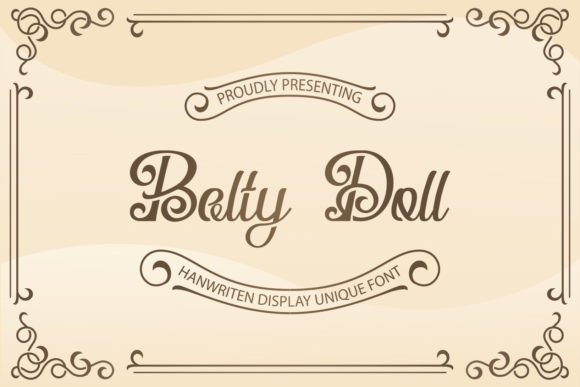
Introducing Belty Doll Font: The Ultimate Vintage Art Style Display Font
Are you looking for a font that can add a touch of elegance and sophistication to your designs? Look no further than Belty Doll Font, a stunning display font with a vintage art style that’s perfect for a wide range of creative projects. In this article, we’ll take a closer look at the features and benefits of Belty Doll Font, and explore how you can use it to take your designs to the next level.
What is Belty Doll Font?
Belty Doll Font is a beautifully crafted display font that’s inspired by the art of the past. With its intricate lines, delicate curves, and ornate details, this font is sure to evoke a sense of nostalgia and romance in your designs. Whether you’re working on a wedding invitation, a logo, or a t-shirt design, Belty Doll Font is the perfect choice for anyone looking to add a touch of vintage charm to their work.
Key Features of Belty Doll Font
- Vintage Art Style: Belty Doll Font features a beautiful vintage art style that’s perfect for creating elegant and sophisticated designs.
- Display Font: This font is specifically designed for use in display settings, making it perfect for headlines, titles, and other prominent text elements.
- Multipurpose: This font is perfect for a wide range of creative projects, including element designs, weddings, events, t-shirts, logos, badges, stickers, and more.
The Benefits of Using Belty Doll Font
Elegance and Sophistication
Belty Doll Font adds a touch of elegance and sophistication to any design. Its intricate lines and delicate curves make it perfect for creating high-end designs that are sure to impress.
Versatility
Belty Doll Font is a multipurpose font that can be used for a wide range of creative projects. Whether you’re working on a wedding invitation, a logo, or a t-shirt design, this font is sure to make your design stand out.
Pair it with Other Fonts
Belty Doll Font looks great when paired with other fonts. Try pairing it with a simple sans-serif font for a bold and eye-catching look.
Experiment with Colors
Belty Doll Font looks great in a variety of colors. Try experimenting with different colors and gradients to find the perfect look for your design.
Use it for Headlines and Titles
Belty Doll Font is specifically designed for use in display settings, making it perfect for headlines and titles.
In conclusion, Belty Doll Font is a stunning display font with a vintage art style that’s perfect for a wide range of creative projects. With its intricate lines, delicate curves, and ornate details, this font is sure to evoke a sense of nostalgia and romance in your designs. Whether you’re working on a wedding invitation, a logo, or a t-shirt design, Belty Doll Font is the perfect choice for anyone looking to add a touch of vintage charm to their work.